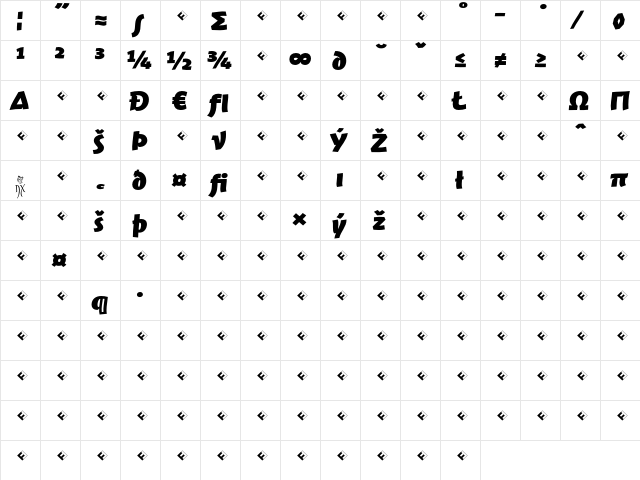
JambonoTF-BlackExpert Regular
Design Context for JambonoTF-BlackExpert Typeface
JambonoTF-BlackExpert takes a measured approach to typography — its balanced proportions and neutral character make it a reliable workhorse for both digital and print work.